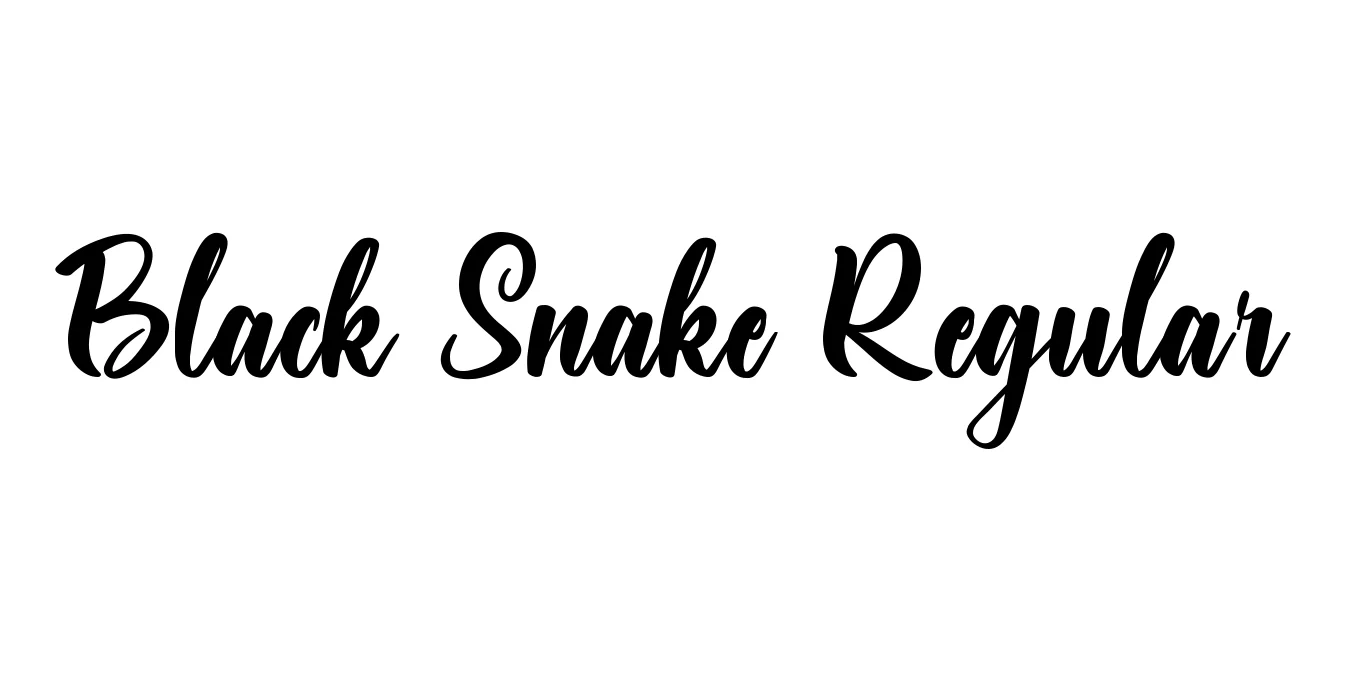
Black Snake Regular
Designed by J-M-S
| Category | Script / Decorative |
| Designer | J-M-S |
Black Snake Regular is a distinctive script typeface characterized by its fluid, cursive strokes and sharp terminals that evoke the movement of a serpent. Designed to capture a balance between elegant calligraphy and edgy urban aesthetics, this font features high contrast between thick and thin lines, making it a popular choice for high-impact display purposes where motion is key.
Over the years, this typeface has become a staple for designers looking to inject a sense of motion and dark sophistication into their projects. The font is particularly effective in subcultures ranging from tattoo artistry to streetwear branding, where its unique letterforms provide a custom, hand-lettered look that stands out in both print and digital media.
Black Snake Regular Best Uses
Ideal for creating intricate, flowing body art designs with a professional touch.
Great for edgy streetwear logos and graphic t-shirt typography.
Perfect for event posters requiring a sense of motion and dark drama.
High-impact headers for social media graphics and music album covers.